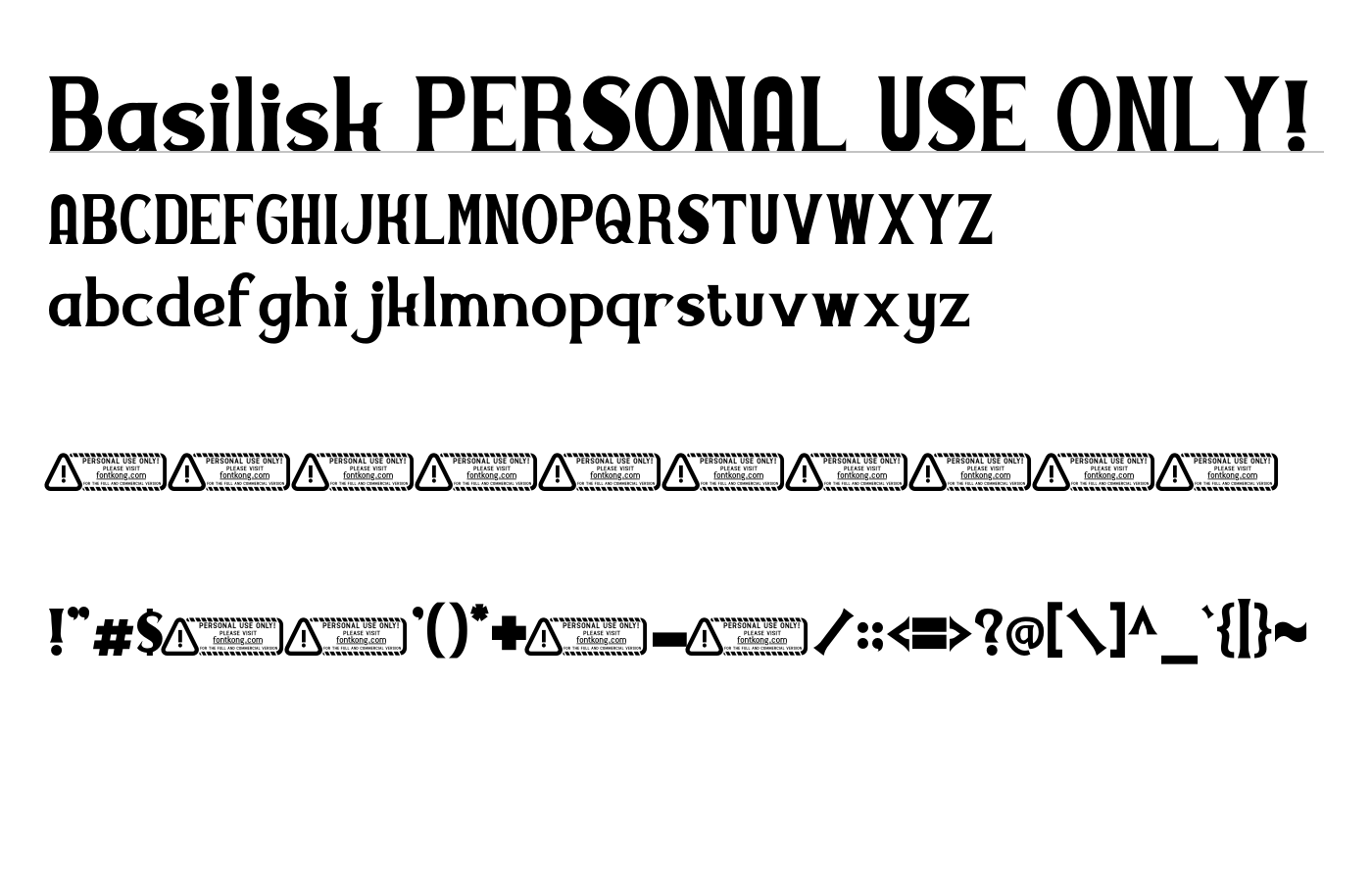
Basilisk is a distinctive serif font with a bold weight and a condensed width, featuring high contrast between thick and thin strokes. Its unique, slightly vintage vibe comes from sharp, bracketed serifs and stylized letterforms that give it an elegant yet slightly playful personality, perfect for eye-catching headlines, logos, and branding that aim to combine classic charm with modern impact. This font works well in projects seeking a dramatic but approachable look, such as editorial designs, packaging, and fashion identity.
Basilisk PERSONAL USE ONLY! Font
About Basilisk PERSONAL USE ONLY! Font